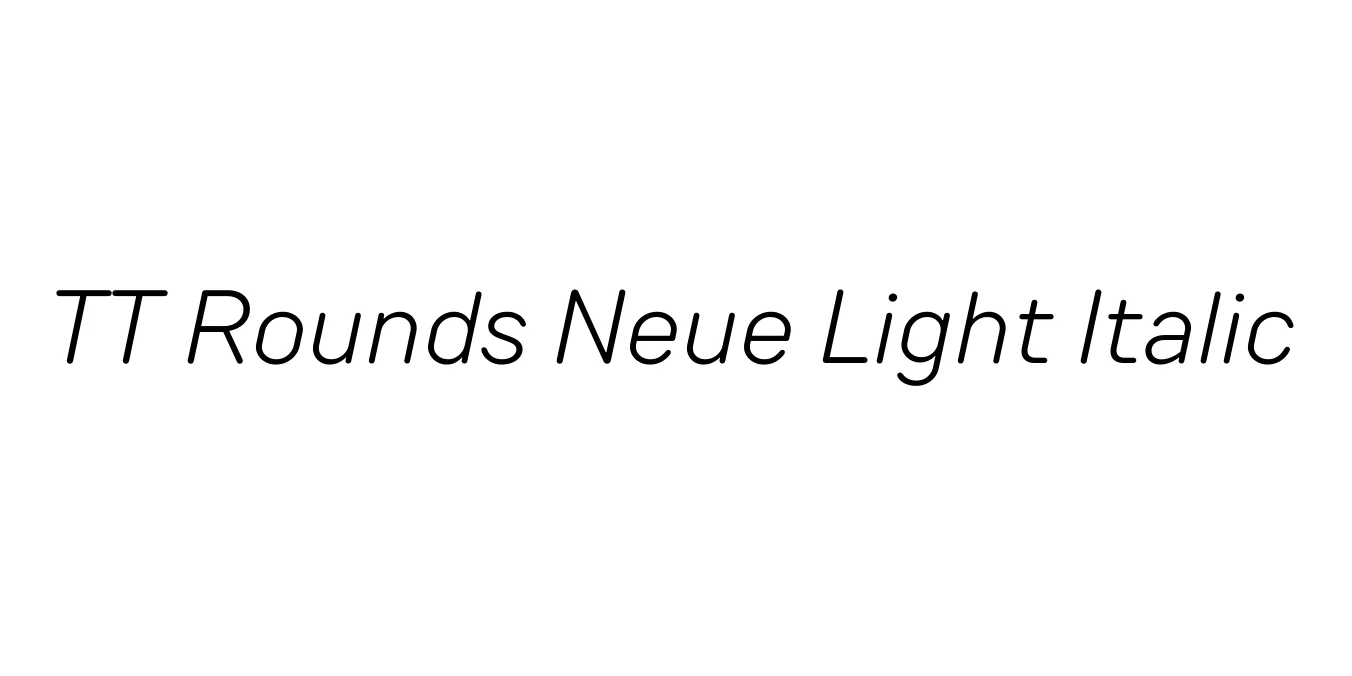
TT Rounds Neue Light Italic
Designed by TypeType
| Category | Rounded Sans Serif |
| Designer | TypeType |
TT Rounds Neue Light Italic is a refined evolution of the original TT Rounds family, meticulously crafted by the TypeType design team. This specific weight and style combination offers a delicate balance between a light, airy stroke and a gentle italic slant, resulting in a typeface that is both sophisticated and approachable. The font is defined by its smooth, rounded terminals and geometric structure, which effectively eliminates the harshness found in standard sans-serifs, making it ideal for brands that want to convey friendliness and transparency.
Technically, TT Rounds Neue has been optimized for the highest digital standards, ensuring crisp rendering across various screen resolutions. The Light Italic variant serves as a versatile tool for designers, providing an elegant rhythmic flow to text that draws the eye without overwhelming the reader. It is widely used in contemporary graphic design for its ability to soften the visual impact of information-heavy layouts, particularly in sectors such as health, technology, and organic retail.
TT Rounds Neue Light Italic Best Uses
Excellent for user-friendly interfaces and approachable blog headers.
Ideal for startups and companies focusing on health, wellness, or technology.
Works perfectly for organic products, baby goods, and eco-friendly brands.
Great for social media graphics and promotional posters that require a soft touch.